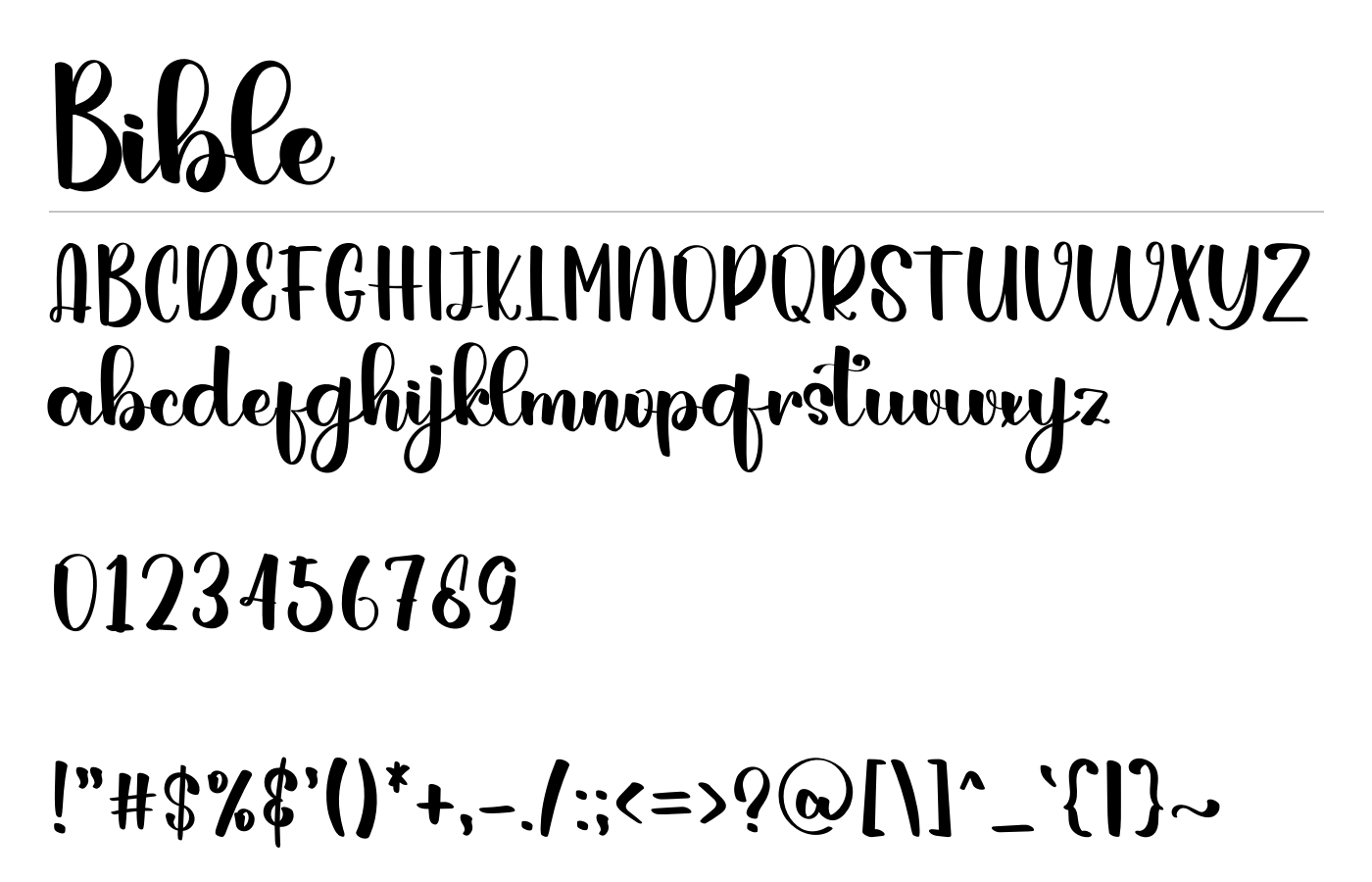
Bible Font is a lively and charming script typeface with a playful yet elegant feel. Its bold weight and high contrast strokes create a striking presence, while the smooth, calligraphic curves and distinctive letter shapes add warmth and character, making it ideal for creative and personal branding, invitations, and headlines that seek a friendly and approachable tone. This font works wonderfully in designs that need a stylish, handcrafted touch without sacrificing readability.
Bible Font